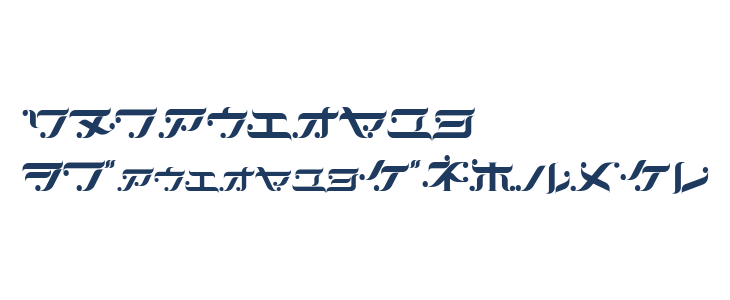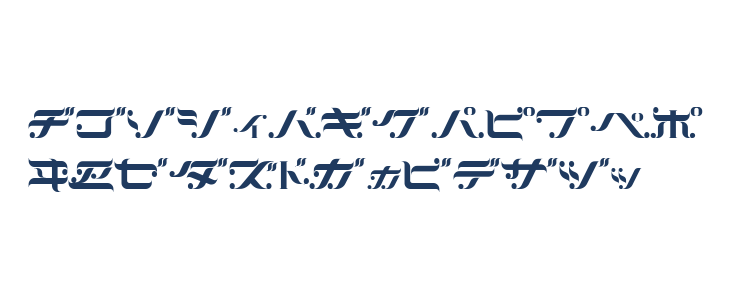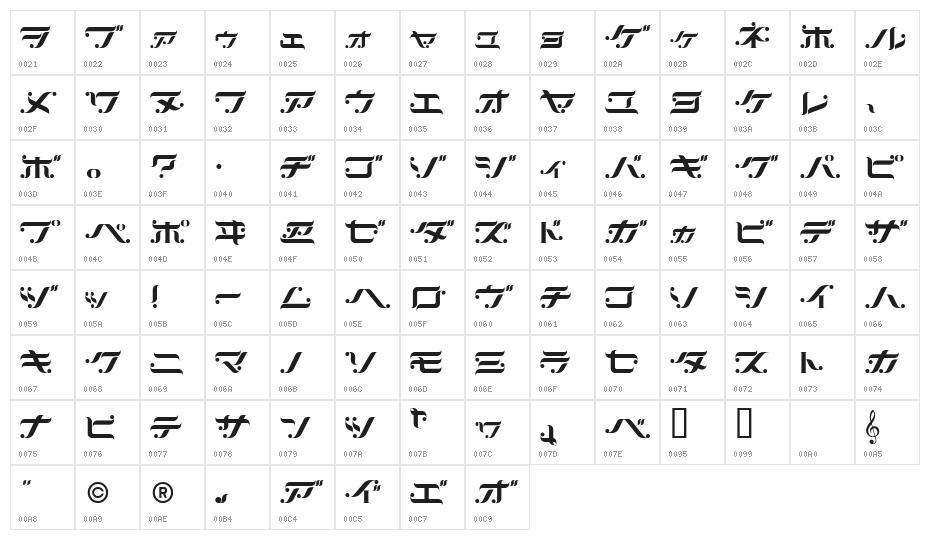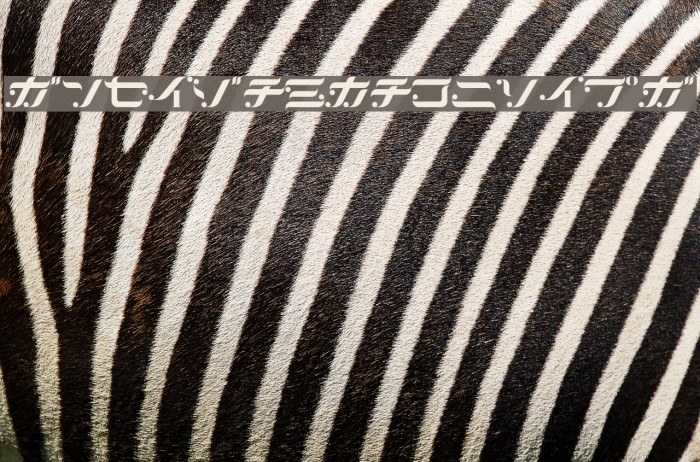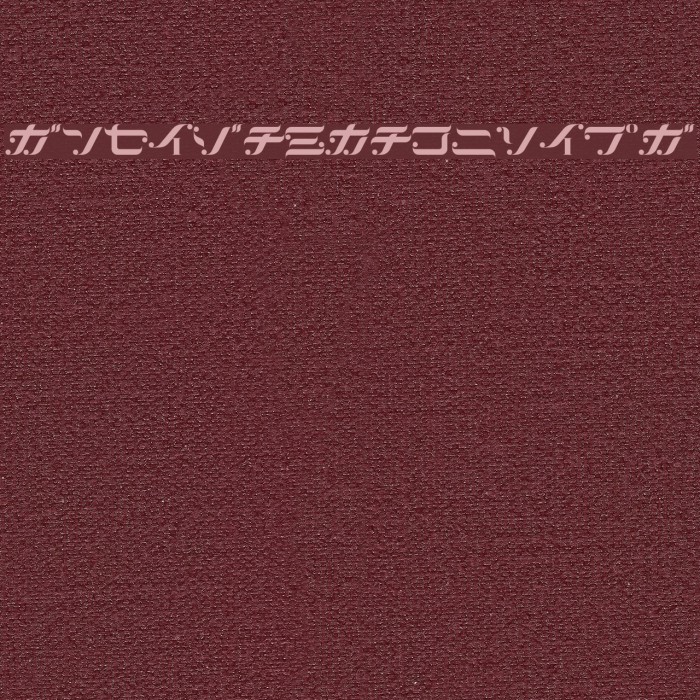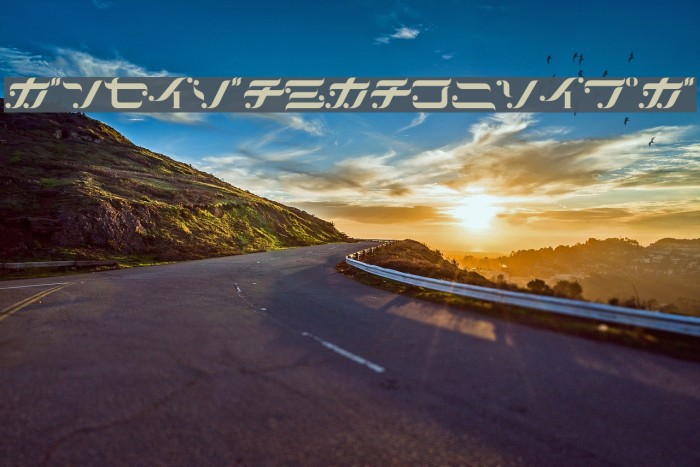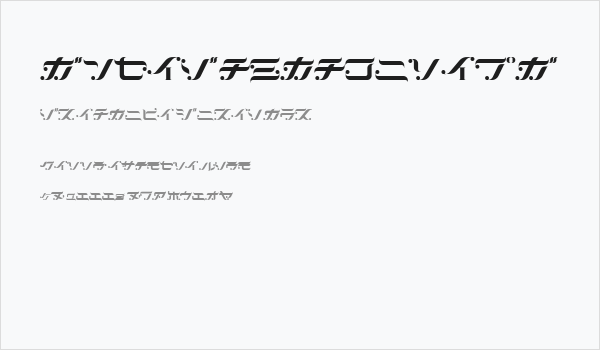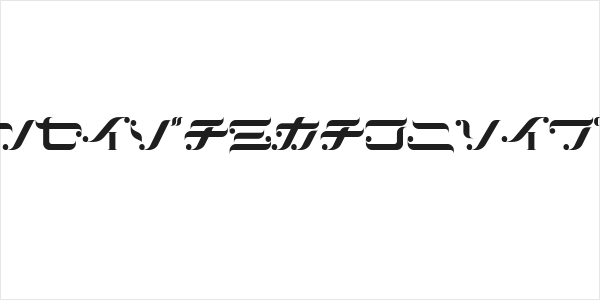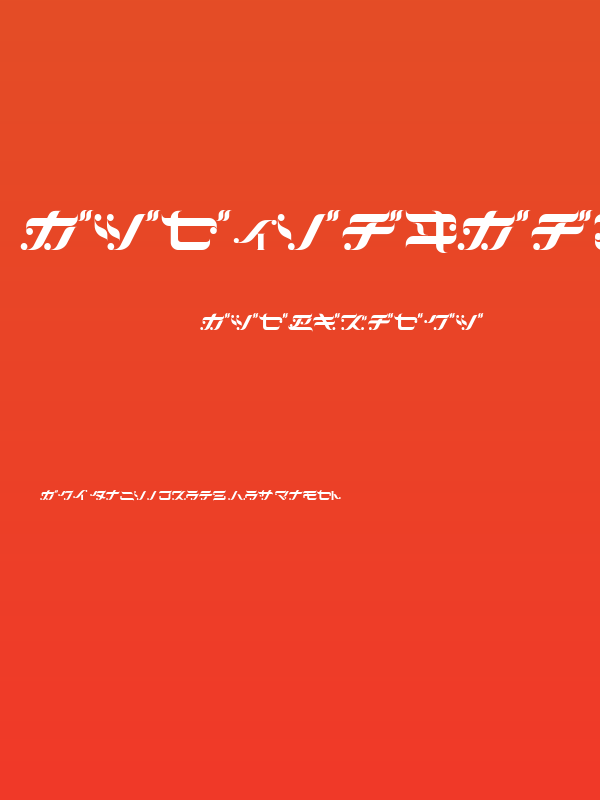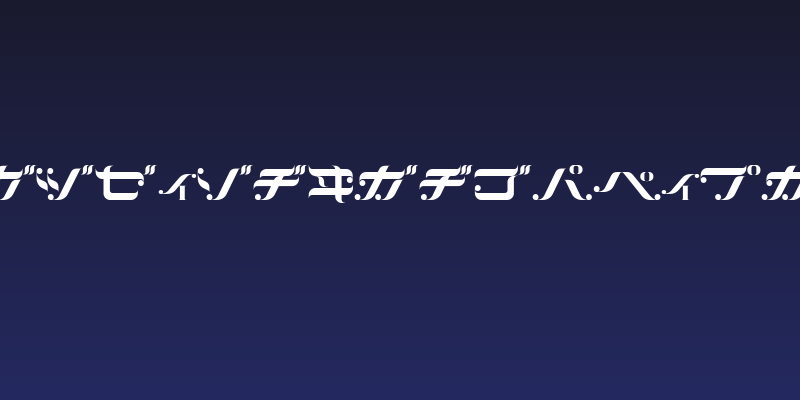
TypeCantabileKT Font
TypeCantabileKT Description
This font features a unique and artistic design, characterized by its bold and decorative style. The characters are embellished with intricate details and flourishes, giving it a distinct and ornamental appearance. The strokes are thick and consistent, creating a strong visual impact. The overall design is both modern and decorative, making it suitable for creative and expressive projects. The spacing between characters is normal, ensuring readability while maintaining its artistic flair.
| Proposed Projects | Ideal for artistic projects, posters, branding, and any creative work that requires a strong visual impact. |